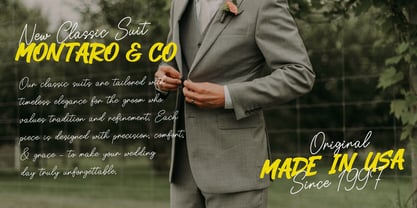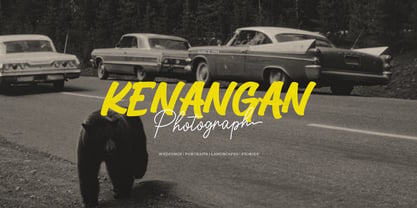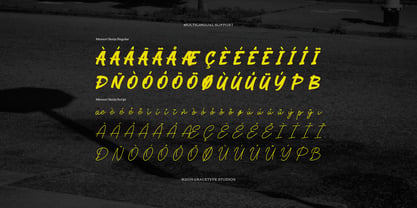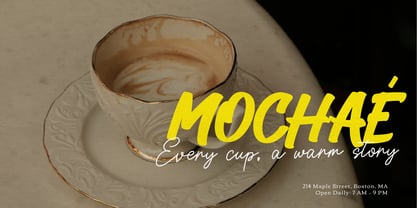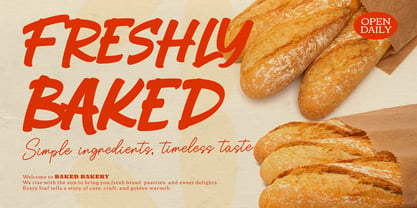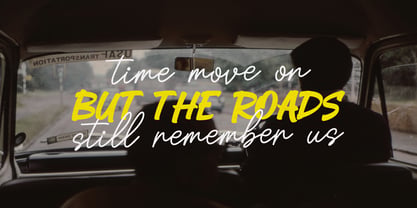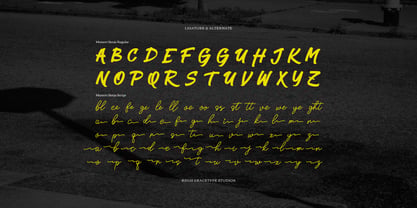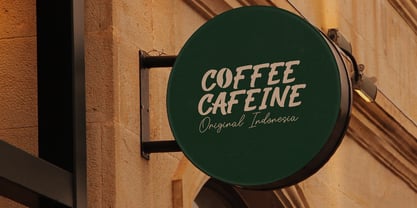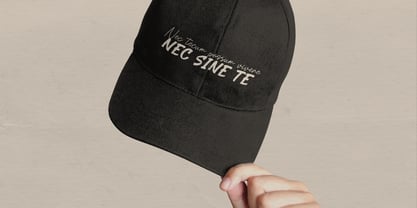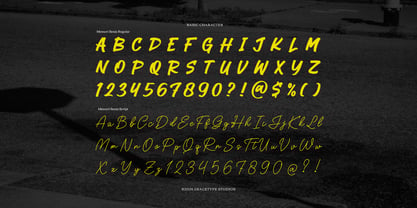
Memori Senja Script
The Memori Senja Script Font Family was designed by and published by Tini Fitriani. Memori Senja Script contains 2 styles and family package options. More about this family
Memori Senja | Hand Drawn Script, from Gracetypestudio, suitable for any projects such as: logos, branding projects, homeware designs, product packaging, mugs, quotes, posters, shopping bags, t-shirts, book covers, name card, invitation cards, greeting cards, label, photography, watermark, special events, and all your other lovely projects that need a Hand Drawn Script taste.